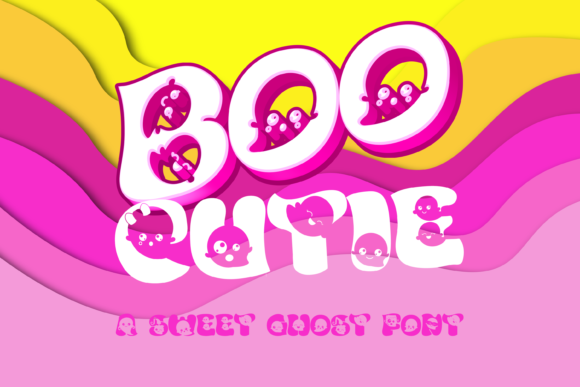
The Boo Cutie Font: A Decorative Delight for Designers and Crafters
I’ll never forget the time I was working on a project for a children’s book, and I just couldn’t find the right font to bring the characters to life. The client wanted something playful, yet elegant, and I was on the verge of pulling my hair out. That’s when I stumbled upon the Boo Cutie font, and let me tell you, it was love at first sight! 💕
Boo Cutie is an incredibly cool decorative font that has become a staple in my design toolkit. Whether you use it for cartoon-related designs, children games, or just any creation that requires a lovely touch, this font will be an amazing choice. In this article, I’ll share my honest review, a practical guide on how to use it, and some helpful tips and tricks.
- Unique and playful design that’s perfect for kids’ projects or adding a touch of whimsy to any design
- Excellent for use in titles, headings, and short paragraphs of text
- Works well in combination with other fonts to create a visually appealing hierarchy
- Great for digital and print projects, including social media graphics, posters, and flyers
- Easy to read and understand, even at smaller font sizes
- May not be the best choice for body text or long paragraphs, as it can be a bit too ornate
- Some characters may not work well at very small font sizes, so use with caution
- Limited availability of stylistic alternates, but still offers a range of OpenType features
The Story Behind Boo Cutie
Boo Cutie was designed with one goal in mind: to create a font that’s both playful and elegant. The designer, inspired by the world of cartoons and children’s books, aimed to craft a font that’s perfect for adding a touch of whimsy to any design. With its unique and quirky design, Boo Cutie is sure to bring a smile to anyone’s face.
Q: What type of projects is Boo Cutie best suited for?
A: Boo Cutie is perfect for cartoon-related designs, children games, social media graphics, posters, flyers, and any project that requires a playful, yet elegant touch.